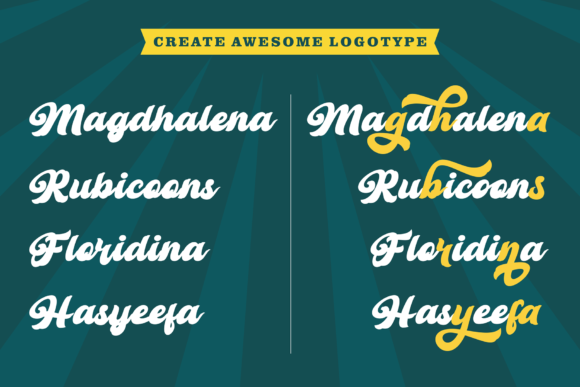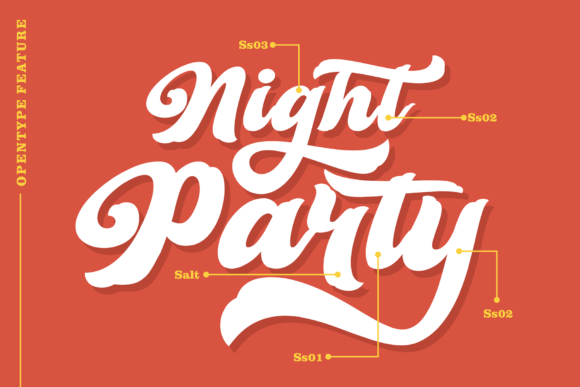
Retro Young Font
db-ku.com - Script & Handwritten -- Retro Young is a retro styled and bold handwritten font, crafted to give your headlines and logotype projects a stylish touch. This font reads as strong, confident, and dynamic and can add tons of nostalgic character to your designs. It is PUA encoded which means you can access all of the glyphs and swashes with ease!